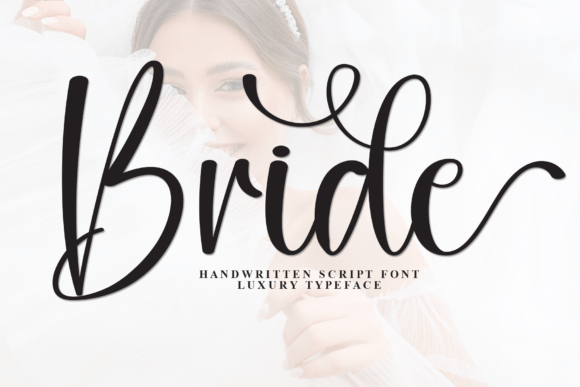
The Bride Font: A Sweet and Friendly Companion for Your Designs
Have you ever been in the middle of a design project, and suddenly, you’re stuck on finding the perfect font? I recall a particularly frustrating moment when I was working on a wedding invitation suite for a client. The design was almost complete, but the font just wasn’t right. It was too formal, too fancy, or just plain boring. That’s when I stumbled upon the Bride font, and it was love at first sight! 💕
The Bride font is a sweet and friendly handwritten font that has become an essential part of my design toolkit. Its natural and unique style makes it incredibly fitting for a large pool of designs. The only limit is your imagination! In this article, I’ll share my honest review of the Bride font, a practical guide on how to use it, and some helpful tips and tricks.
An Honest Review of the Bride Font
What I Love About the Bride Font ✨
• ✅ The Bride font has a unique, handwritten feel that’s perfect for creating personalized and friendly designs.
• ✅ Its natural style makes it suitable for a wide range of projects, from wedding invitations to social media graphics.
• ✅ The font is highly legible, even at small sizes, making it perfect for body text or captions.
• ✅ The OpenType features, including glyphs and stylistic alternates, offer a lot of creative freedom.
While the Bride font is an excellent choice for many designs, there are a few things to keep in mind:
• ⚠️ The font may not be the best choice for very formal or corporate designs, as it has a distinctly friendly and approachable tone.
The Story Behind the Bride Font
The Bride font was designed by a talented type designer who wanted to create a font that would capture the essence of a handwritten script. The designer drew inspiration from classic wedding invitations and romantic letters, aiming to create a font that would be both elegant and approachable. The result is a font that’s perfect for creating beautiful and personalized designs.
Q: Is the Bride font easy to read?
A: Yes, the Bride font is highly legible, even at small sizes. This makes it perfect for body text or captions.